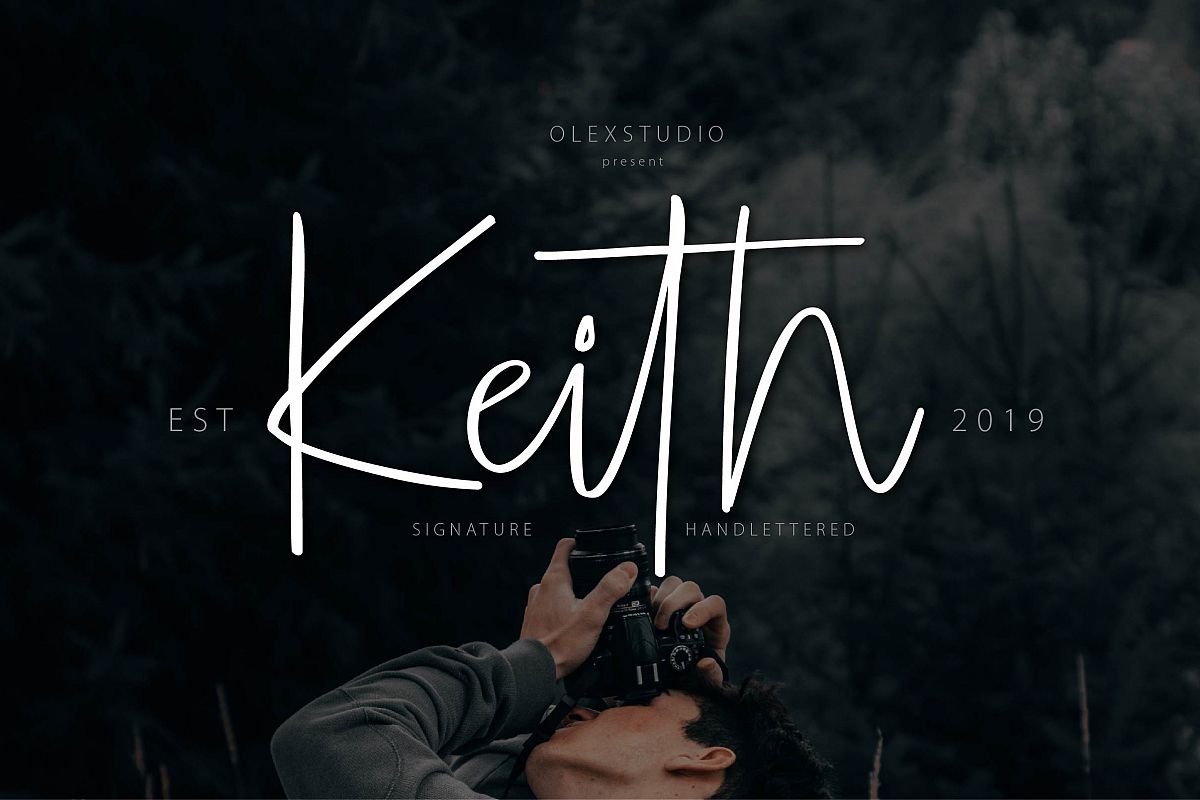
KEITH Signature
Keith-Regular
KEITH signature is a beautiful signature font, This Font will look gorgeous on all your designs, invitation, book, branding materials, logo's, t-shirt, poster and all project design other.
KEITH signature font contains standard characters, lowercase, lowercase alternates & Uppercase , numbers, punctuation, ligatures and international glyphs.You will receive OTF, TTF and WEBFONT files.